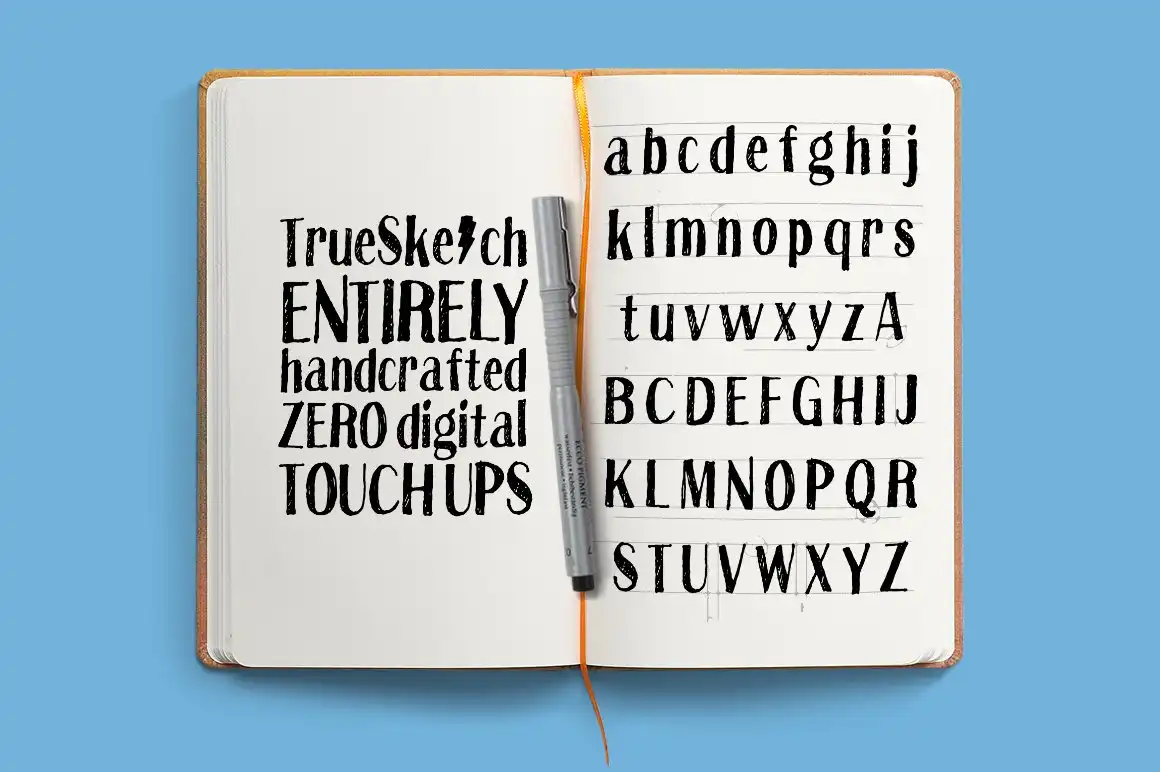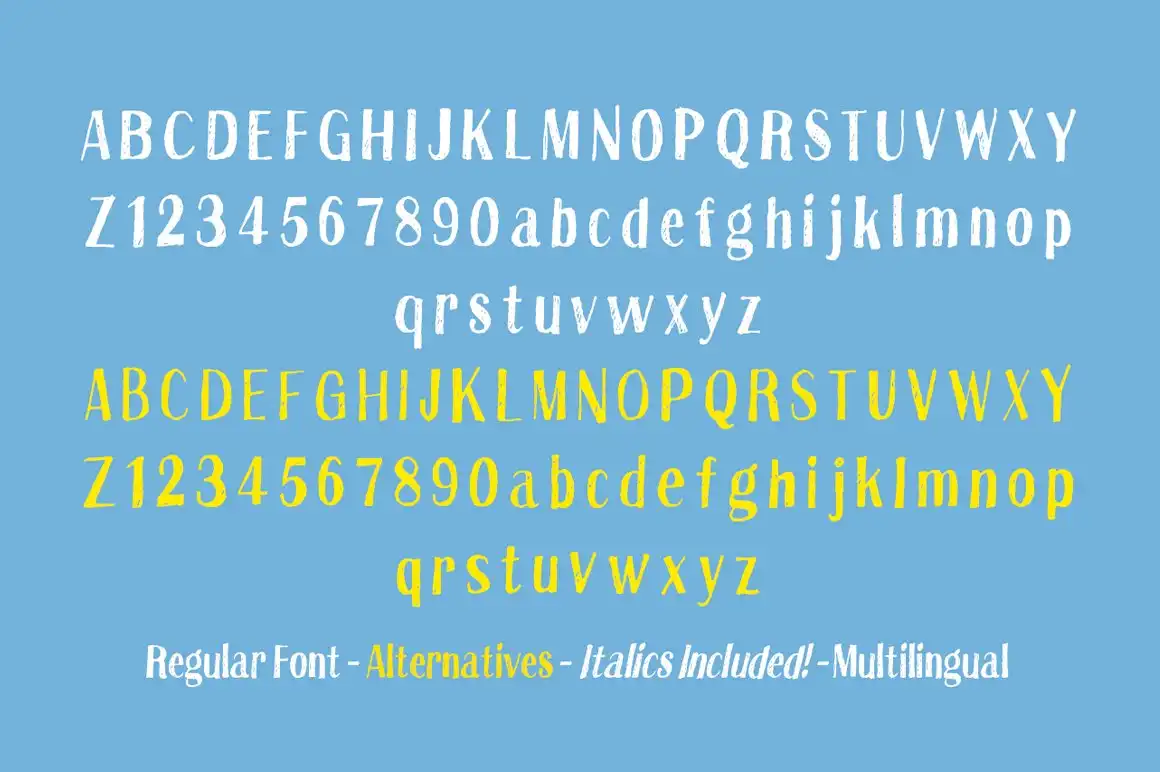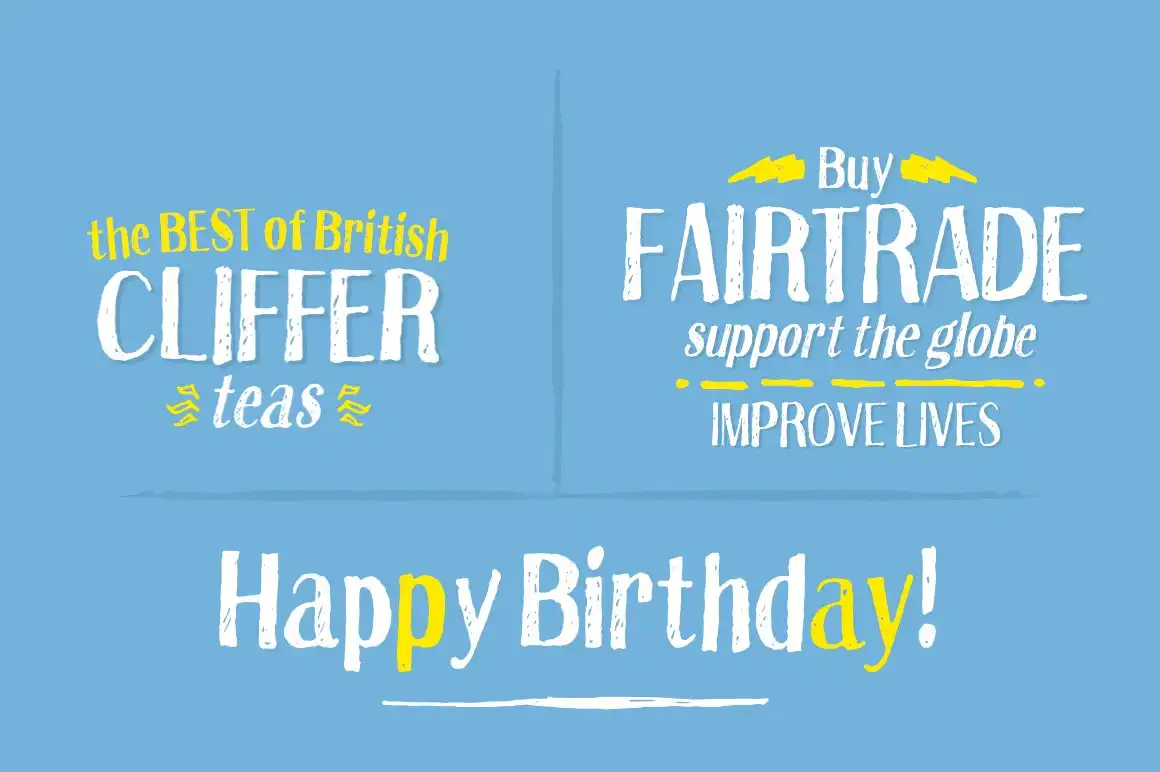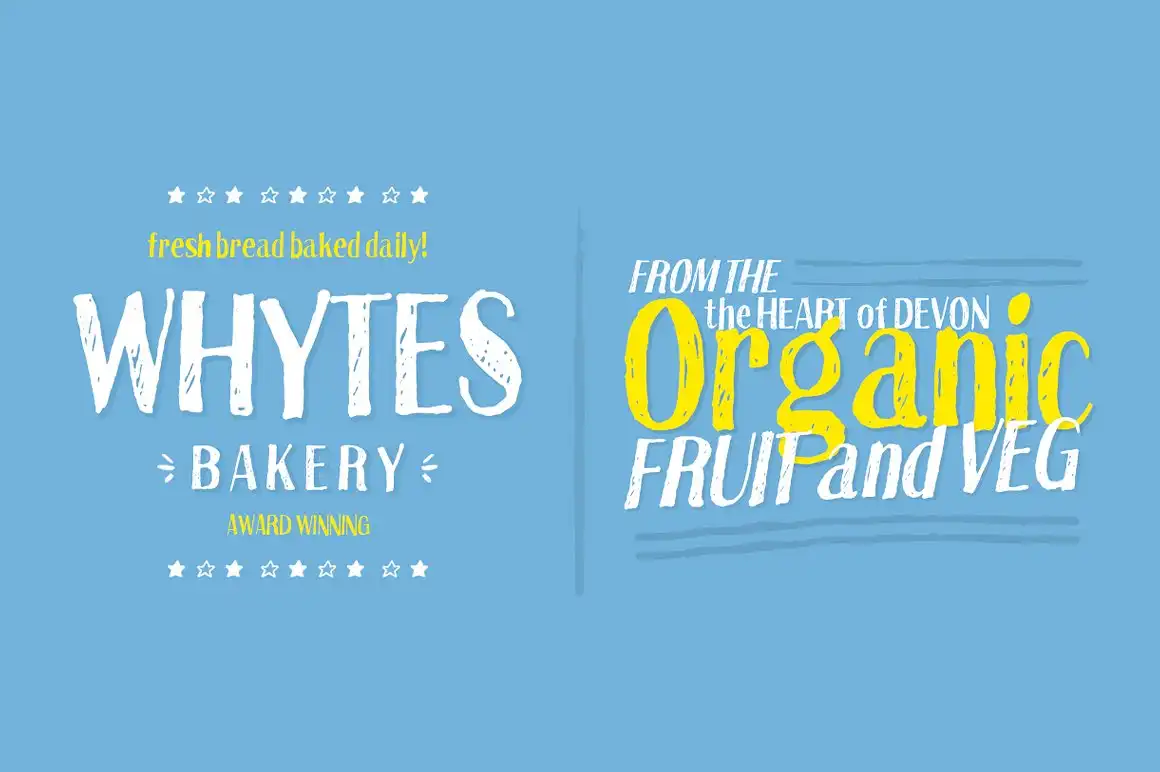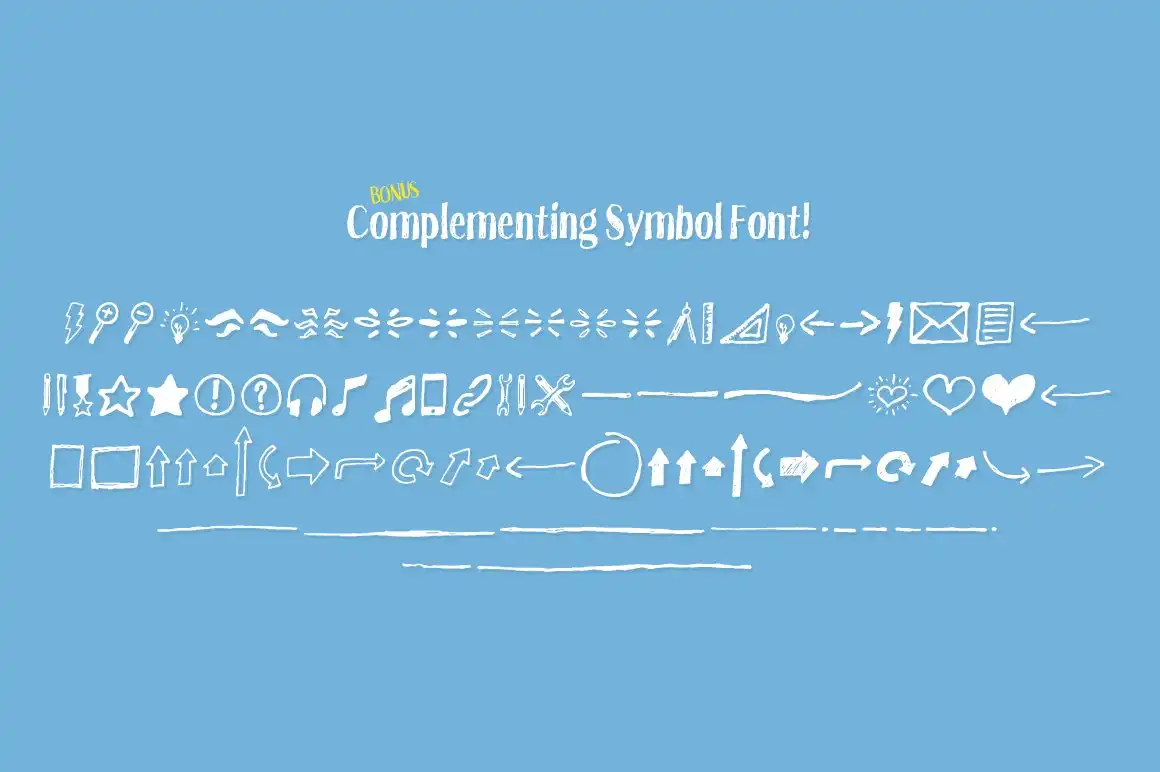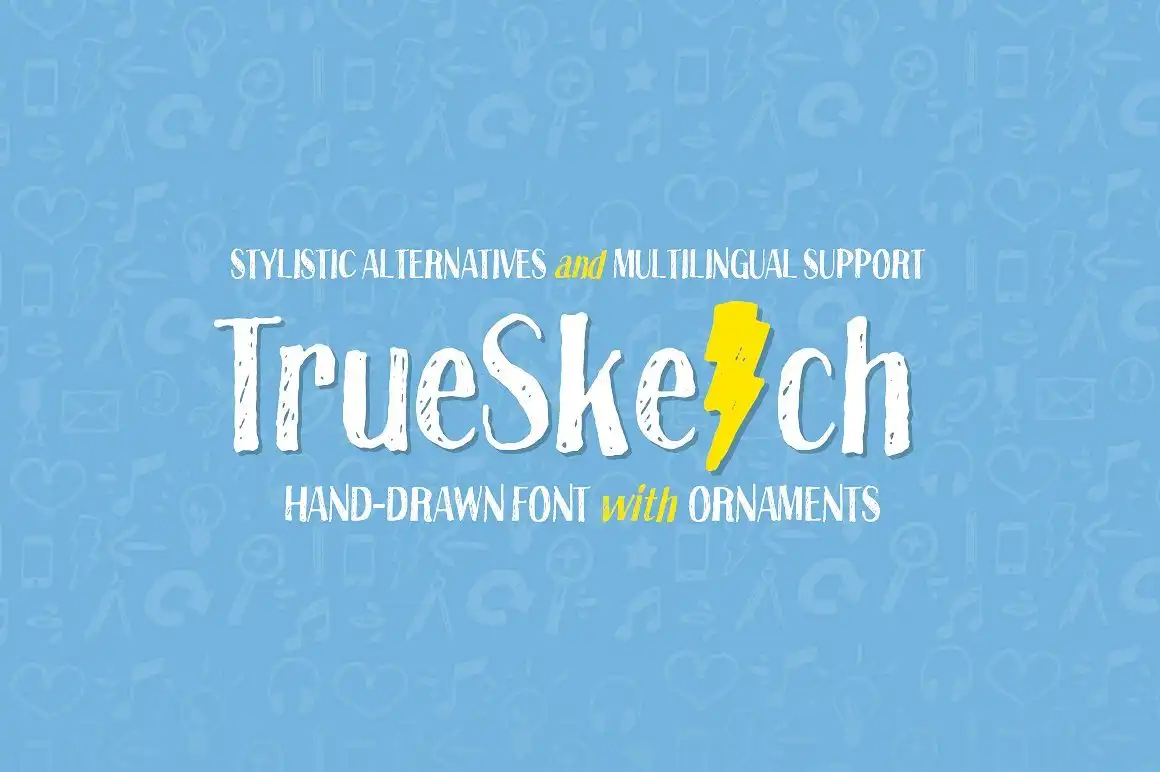
Welcome to TrueSketch + Bonus Ornament Font!
TrueSketch is a fun, practical, and versatile font that shines in various digital projects. This regular font comes with an italic option and offers stylistic alternatives for every letter, allowing you to emphasize an authentic handwritten style. Every glyph has been hand-drawn, scanned, and converted to vector without any digital touch-ups. ✍️✨
- Handcrafted Design: Each glyph is meticulously hand-drawn, giving your work a unique, personal flair.
- Multilingual Support: TrueSketch caters to a global audience, making it perfect for any project.
- Bonus Ornament Font: Enjoy 85 hand-drawn design elements that beautifully complement the TrueSketch font family. 🎨
- TrueSketch Regular Font
- TrueSketch Italic Font
- Bonus Ornament Font with 85 design elements
This font is ideal for graphic designers, illustrators, and anyone looking to add a touch of creativity to their work. Whether you’re crafting invitations, branding materials, or digital art, TrueSketch will elevate your designs! 💖